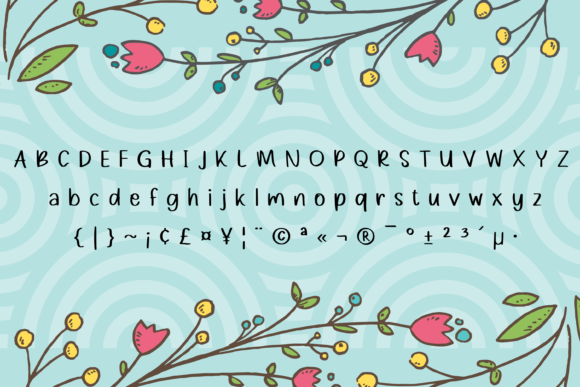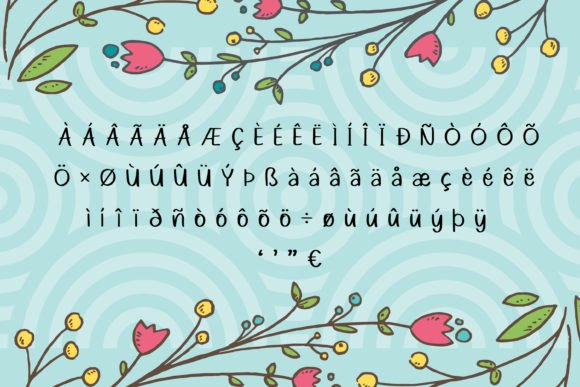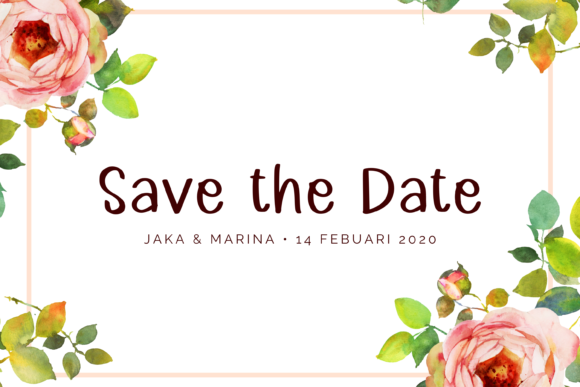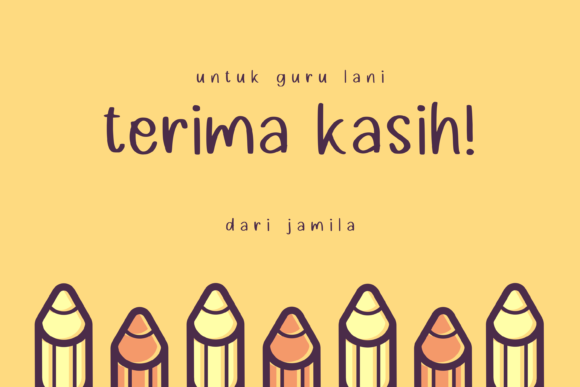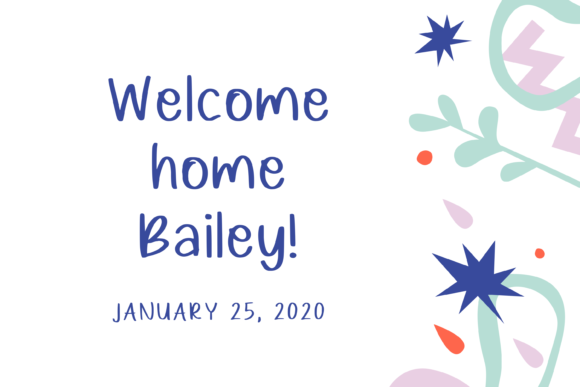
Padreman Font
About Padreman Font
Padreman is a charming and friendly handwritten font that brings a warm and personal touch to your designs. With its natural and unique style, this font is incredibly versatile and suitable for a wide range of creative projects.
The friendly and approachable nature of Padreman makes it a perfect choice for various design applications. Whether you’re working on greeting cards, invitations, social media graphics, branding materials, or any other project, Padreman adds a delightful and welcoming vibe.
The handwritten quality of Padreman adds an authentic and personal feel to your text. Each letter is carefully crafted with attention to detail, resulting in a font that feels warm and inviting. The natural flow of the characters adds a sense of handmade charm, making your designs feel more personal and relatable.
The versatility of Padreman allows it to adapt to different design styles and themes. Its friendly and casual appearance complements a wide range of aesthetics, from whimsical and playful to modern and minimalist. Whether you’re going for a cozy and nostalgic look or a contemporary and fresh design, Padreman can enhance your vision.
Padreman encourages creativity and imagination. Its unique style opens up a world of possibilities, allowing you to experiment with different layouts, color combinations, and design elements. Let your imagination run wild and create designs that are truly one-of-a-kind.
Whether you’re creating a logo, designing packaging, crafting handwritten quotes, or adding a personal touch to your digital creations, Padreman brings a sense of authenticity and warmth to your projects. Its friendly and natural style resonates with people, making your designs more relatable and engaging.
In conclusion, Padreman is a sweet and friendly handwritten font that adds a personal and welcoming touch to your designs. Its natural and unique style makes it suitable for a wide range of projects, and its versatility allows you to explore different design possibilities. Embrace the charm of Padreman and let it inspire your creativity to new heights.